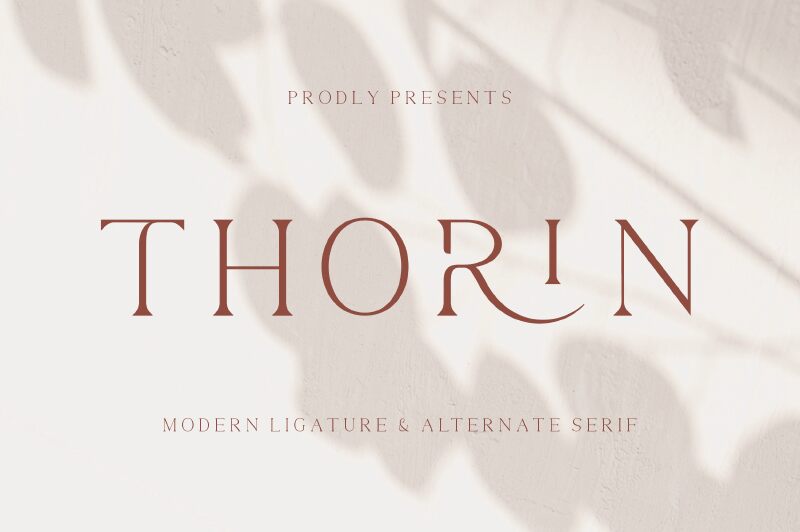
THORIN Regular
Thorin font by Achmad Yani of Flawless and Co. is an elegant serif free font with classic and authoritative themes. Sophisticated as if aged but not forgotten, its timeless elements reign superior. Formal features combine to give this design the classy look every ambitious project deserves.
Use it for building product brand names or for product packaging. Advertisements, books, stationery uses in headings or subheadings are also options among the many other possibilities waiting!